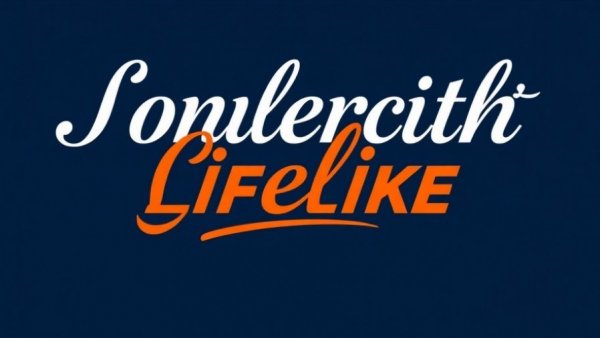
Elevate Your Brand with These High-Quality Logo Fonts
High-quality logo fonts with bold serif and script style
The Power of Typography in Brand Design
Fonts are more than just text; they play a crucial role in defining a brand's personality. Designers understand that typography can evoke emotions—bold fonts imply strength, while sleek, modern fonts suggest innovation. In a world where first impressions matter, a well-chosen logo font can captivate audiences instantly, making it essential for any brand.
Choosing the Right Logo Font
When selecting a font for a logo, it’s important to consider various factors, including the brand's identity, target audience, and the message it aims to convey. For instance, technology companies often lean towards clean sans serif fonts, while luxury brands favor elegant serifs with character.
Desirable qualities in a logo font include readability across sizes, adaptability across media, and a style that reflects the nature of the business. The right font doesn’t just look good—it encompasses the story and values of the brand.
Trending Logo Fonts for Designers
2023 has introduced a mix of timeless classics and modern trends. Here’s a curated selection of exceptional fonts that stand out this year:
• Futura: This geometric sans serif font succeeds across a wide range of industries, combining modernity with timelessness.
• Proxima Nova: Renowned for its clean design, this versatile font is perfect for tech companies that want to convey reliability.
• Didot: A stylish serif font that brings an air of luxury without being overly formal, often favored by fashion brands.
• Open Sans: This font’s legibility and modern appeal make it highly versatile for digital and print applications, suitable for various business types.
• Serif Options: For those that want a taste of elegance, fonts like Garamond and Bodoni consistently provide sophistication and readability.
The Importance of Brand Identity
A cohesive brand identity extends beyond just a logo; it encompasses fonts, colors, and overall design language. Consistency in branding helps establish trust, increases recognition, and can even drive customer loyalty. With effective logo design, businesses can communicate their uniqueness and core values clearly.
Actionable Insights for Business Owners
As a business owner, understanding the nuances of logo fonts can give you a competitive edge. Here are some tips:
• Assess font readability at different sizes.
• Test logos in black and white to understand their adaptability.
• Seek feedback from diverse focus groups to gauge font reception.
• Consider hiring a brand identity designer who can help create a comprehensive branding strategy.
Conclusion: Invest in Your Brand’s Future
The right font can make or break your logo, shaping customer perceptions and influencing brand loyalty. So, whether you are refreshing an existing logo or embarking on a new project, invest time into selecting the perfect fonts that resonate with your brand's identity. If you're ready to take the next step, reach out to a local graphic designer today—together, you can craft a logo that leaves a lasting impression.